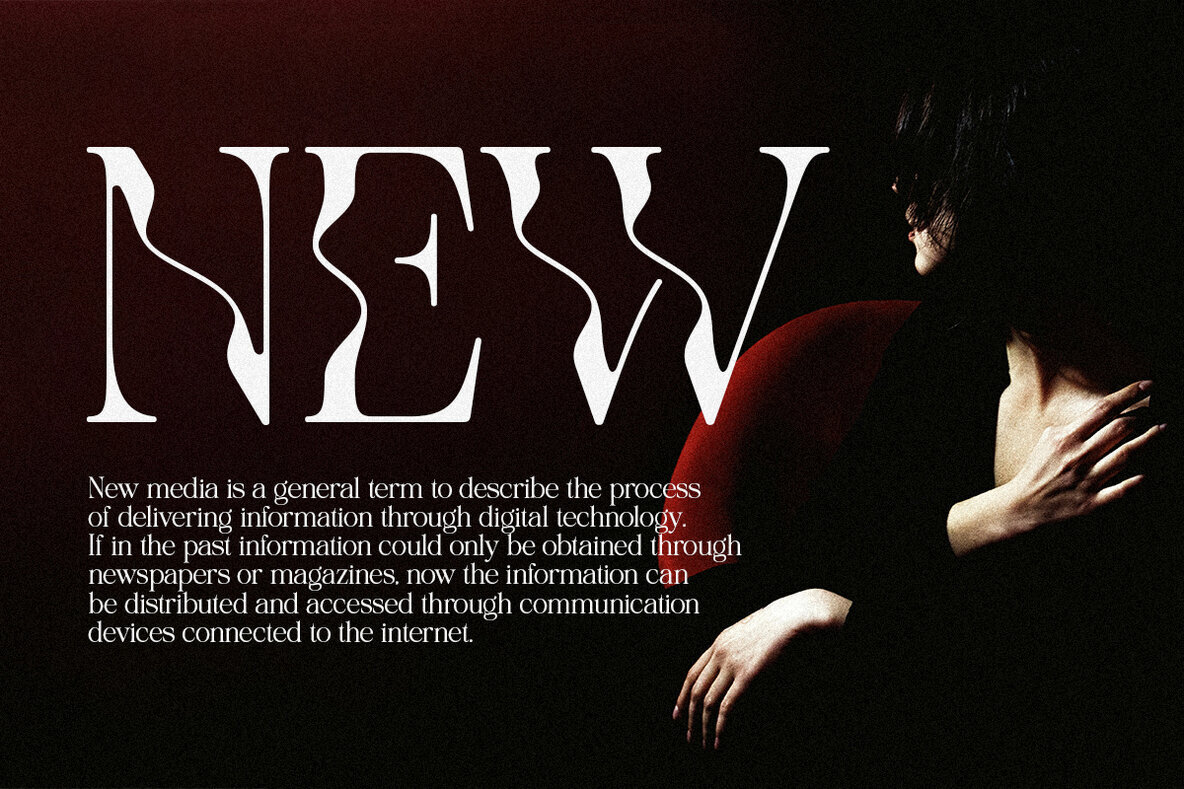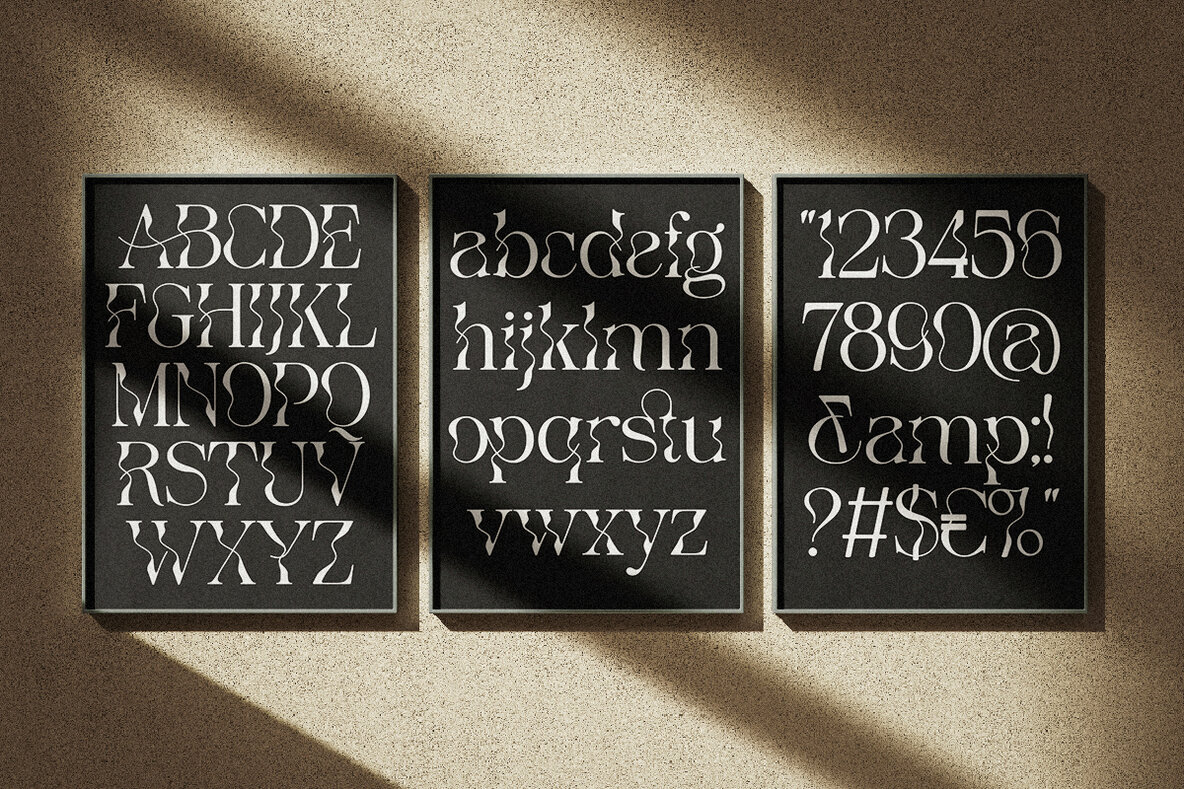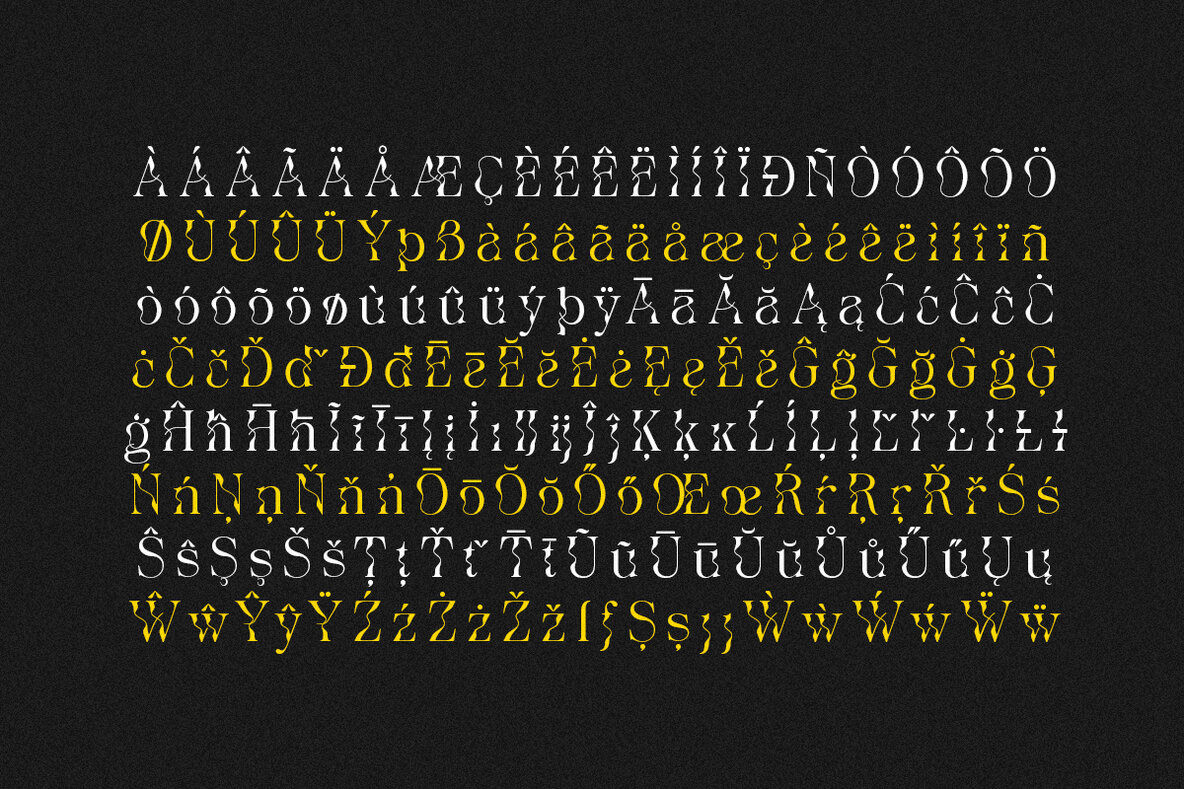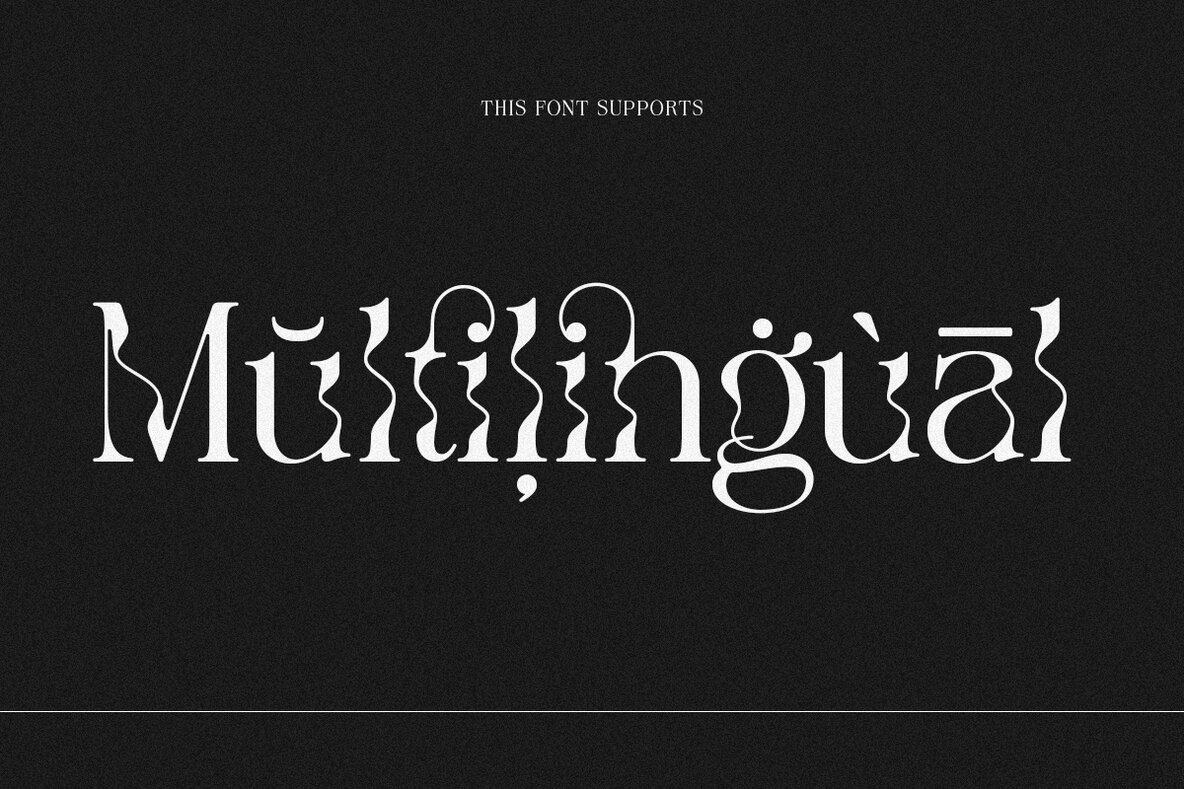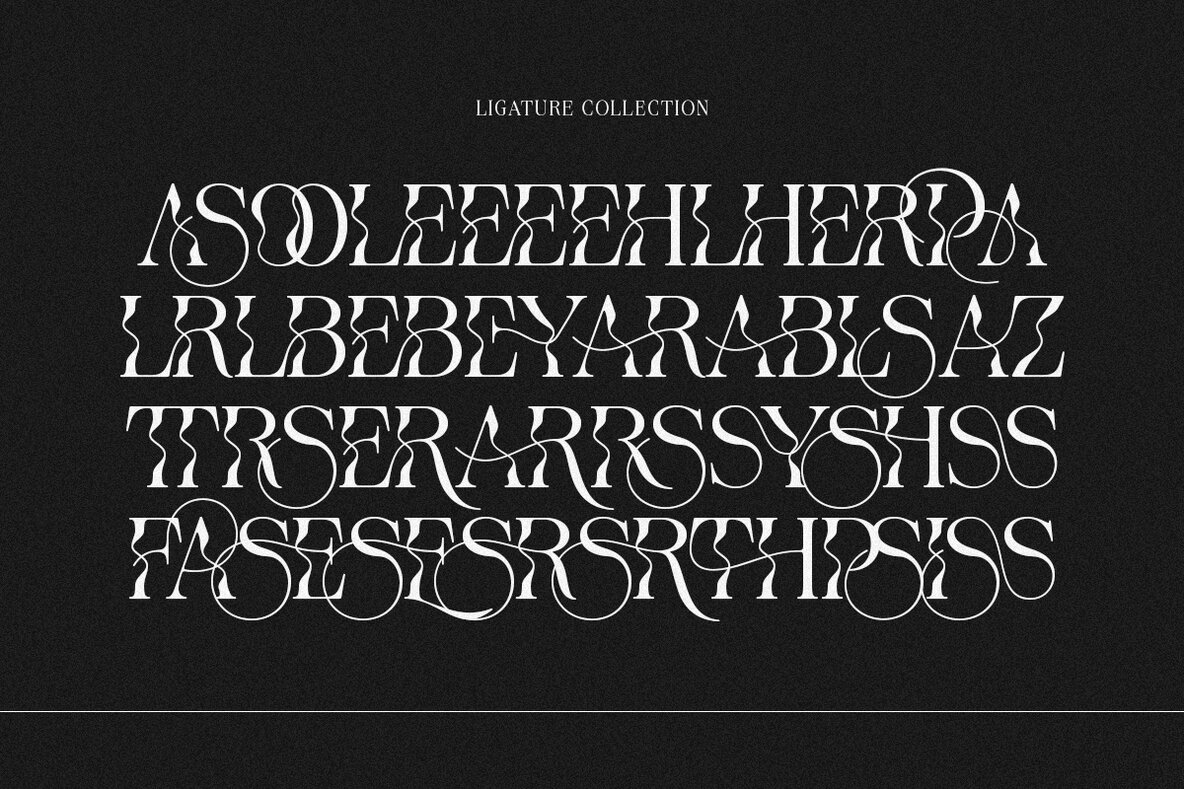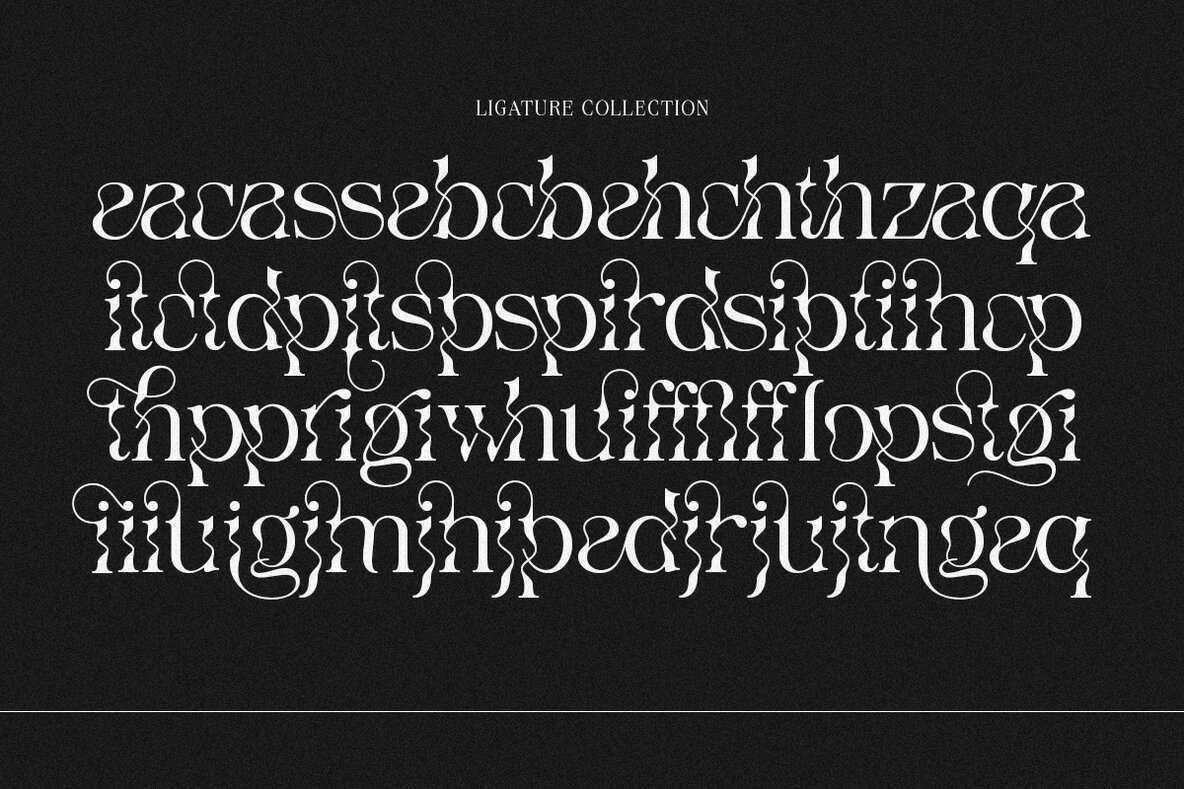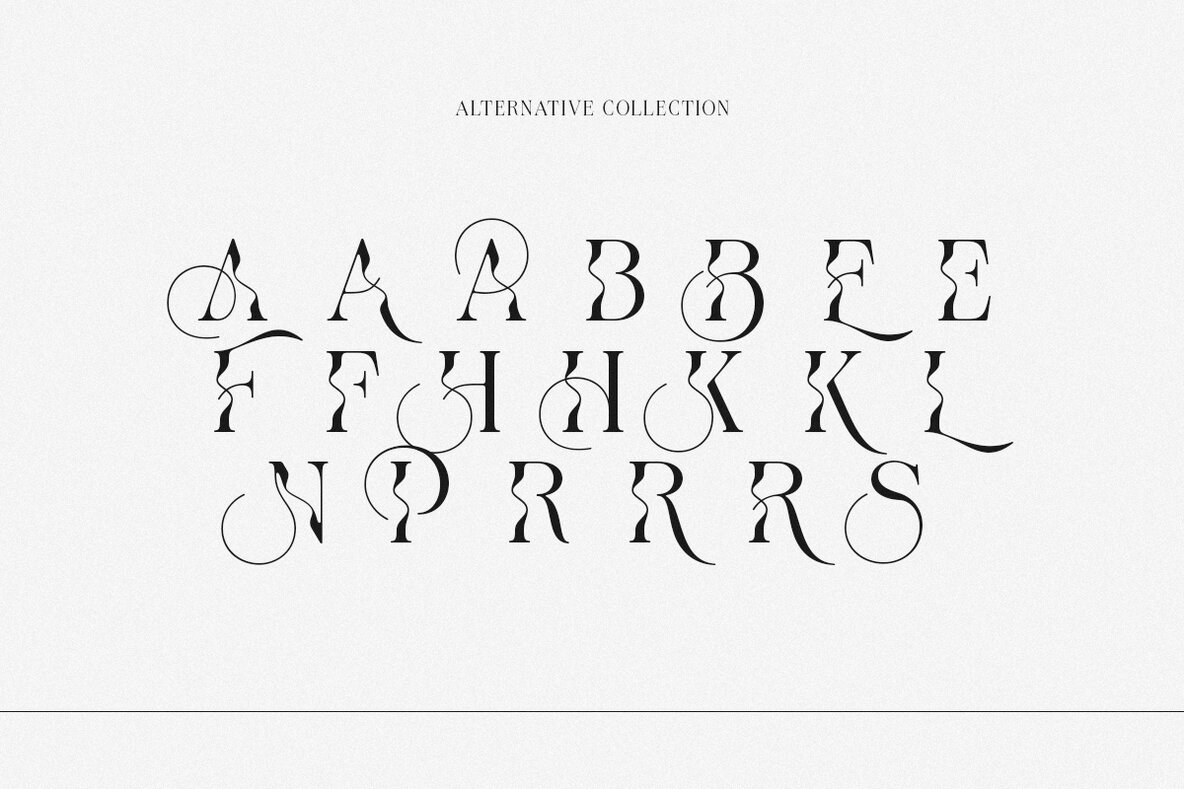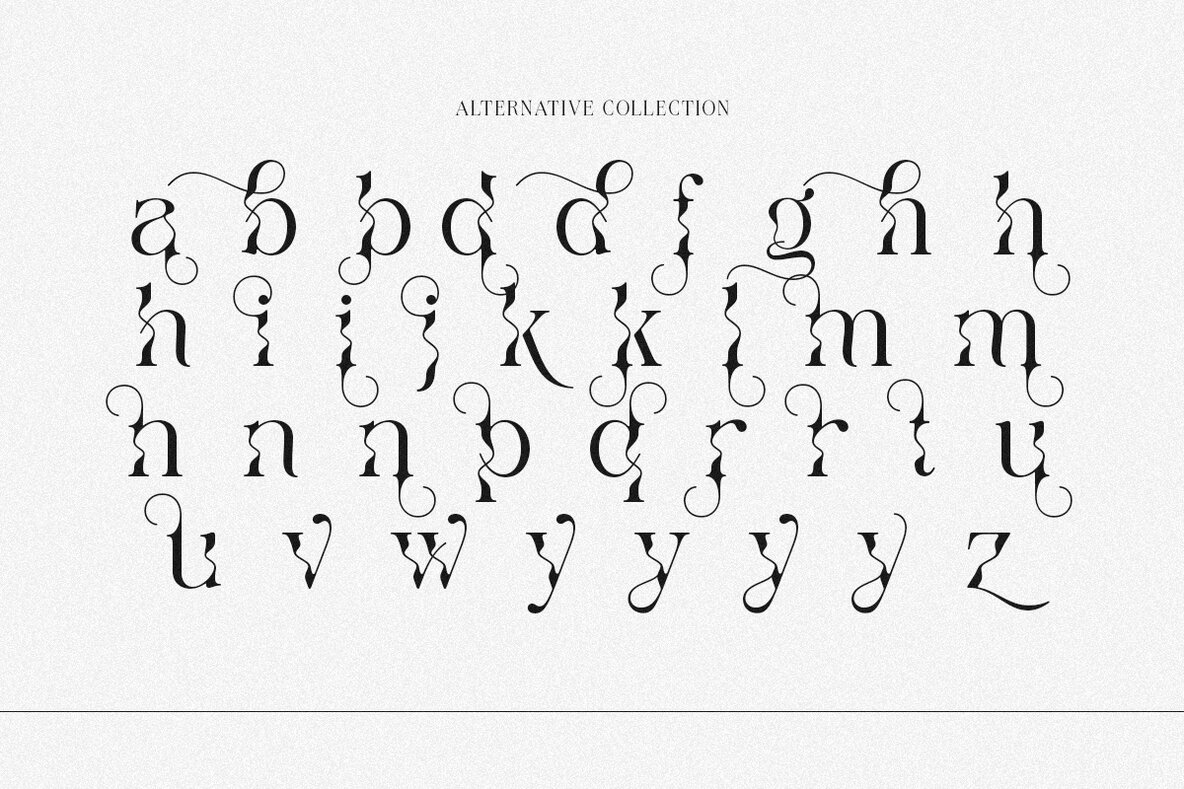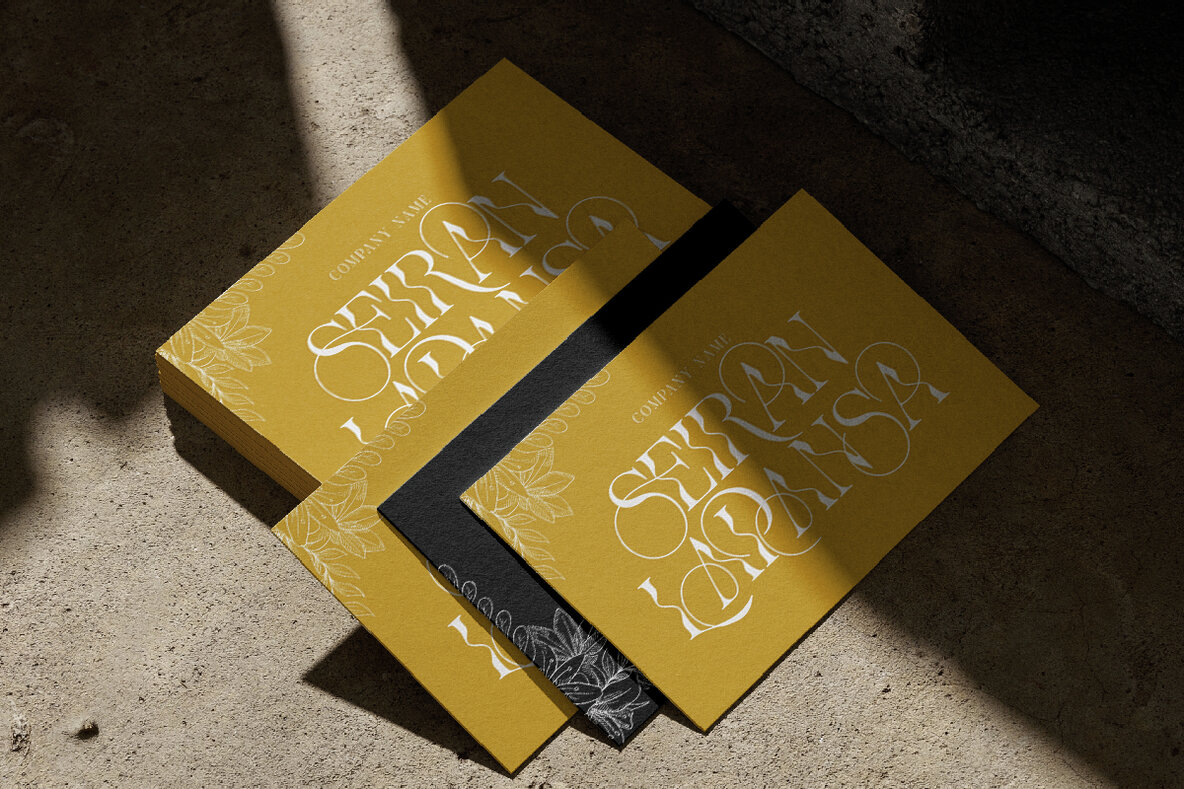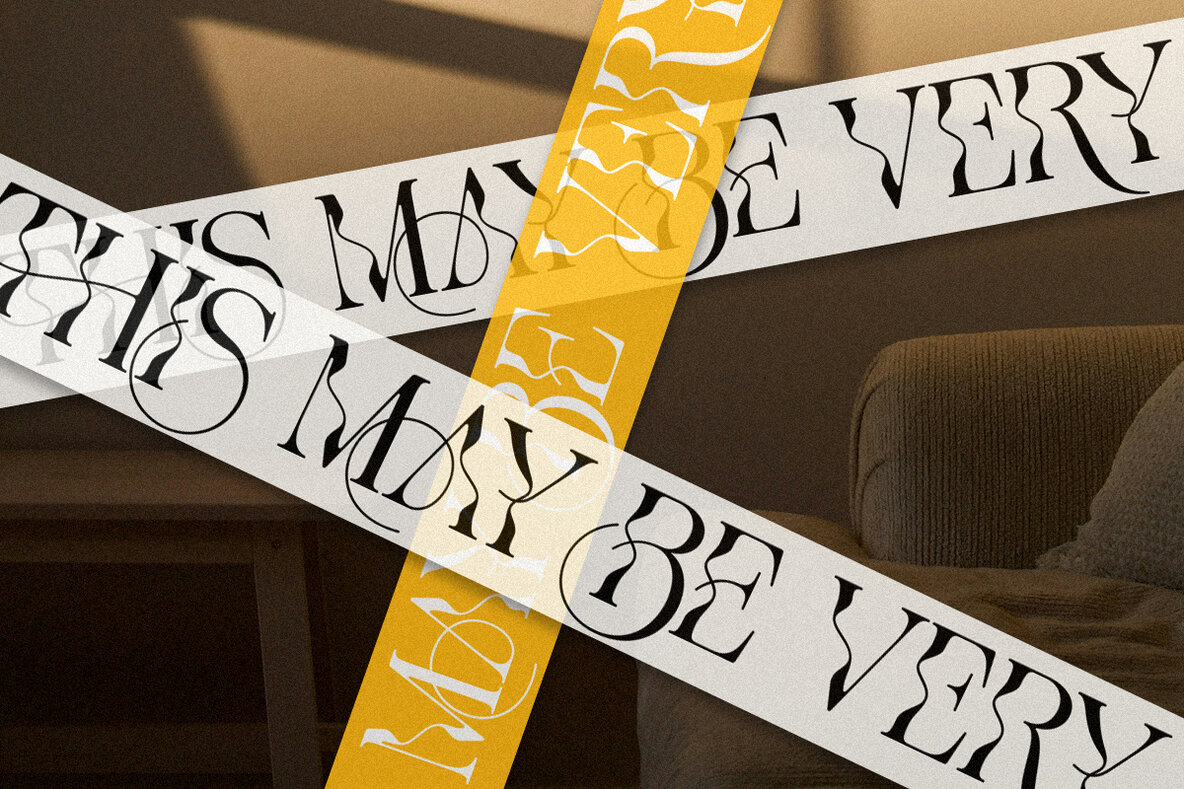
The Seiran Lapansa Font
The Seiran Lapansa is a stylish serif font that seamlessly blends modern and traditional serif styles, offering a distinctive and captivating typographic experience. The blend of elegant modern serifs with the charm of old serif styles makes it a versatile choice for various design projects. The Seiran Lapansa features clean lines, sharp edges, and a sophisticated look, showcasing the elegance and professionalism inherent in modern design principles.
Inspired by contemporary serif fonts, The Seiran Lapansa introduces ornamental details, slightly curved serifs, and subtle variations in stroke width. These design elements add a touch of sophistication and character to the letterforms, making it suitable for branding, editorial designs, and other creative projects. The old serif aspects found in the capitals provide a sleek, sophisticated touch, enhancing the overall appeal of the font. This font is part of the Heproyal font family, ensuring consistency and quality in your design work.